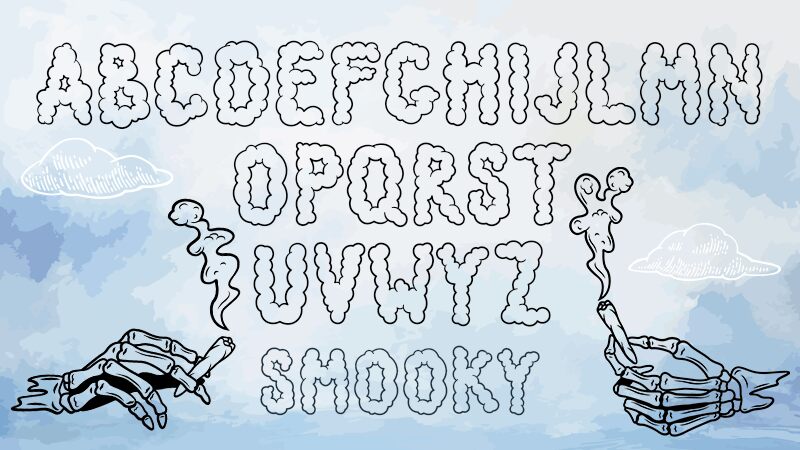
Smooky font by Biroakakarati is a free font with a cartoon inspiration and approachable personality. It’s bubbly, playful, and casual, making it a perfect font of choice for projects looking to express a touch of whimsy. Its character is an ideal design solution to everything modern, fun, and friendly.
Smooky is suitable for kid-related merchandise, apparel, book covers, board games, posters, and social media posts. Use it for the branding of fun, edgy companies marketing to a younger audience.